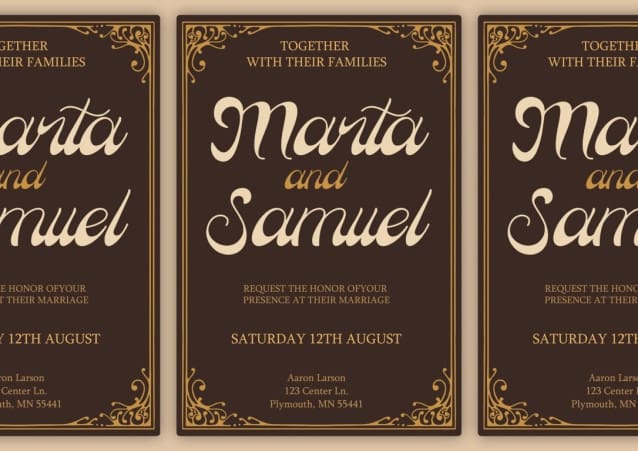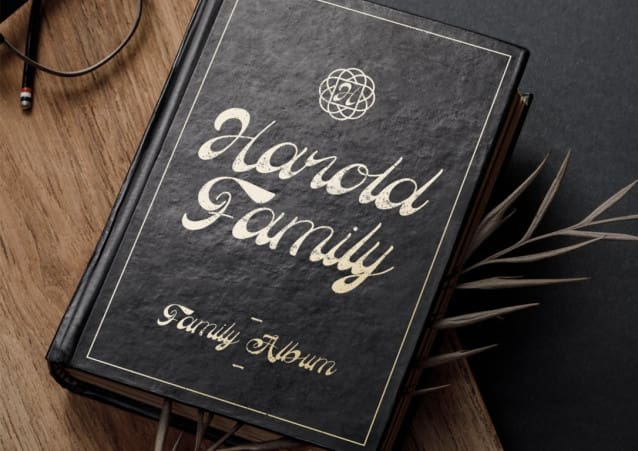
Koumaty Font
Koumaty Font, a vintage-inspired font with a distinctive bottom-heavy display script. Inspired by hand lettering and elements of typography, Koumaty brings a unique and nostalgic touch to your designs. This font is best suited for medium to large sizes, allowing you to create impactful typography in various projects. Let Koumaty elevate your designs with its vintage charm and timeless appeal.